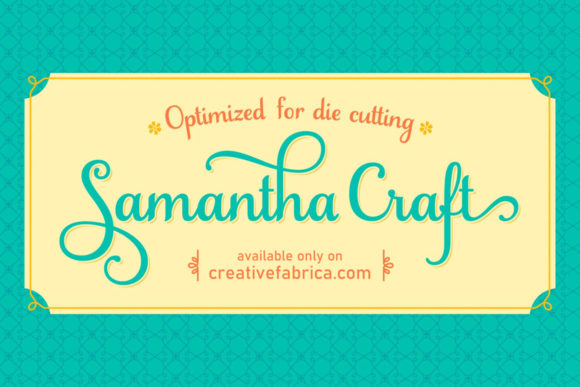
Introducing Samantha Craft Font - the perfect choice for all your crafting needs! Whether you're a professional crafter, a tattoo artist, or simply a lover of beautiful script fonts, Samantha Craft is the ideal choice for you.
Created by the talented Laura Worthington, Samantha Craft is the latest addition to the popular Samantha font family. This stunning script font is ideal for those looking for a Font for Tattoo Script, offering a beautiful, flowing design that is sure to impress.
Samantha Craft is a versatile font that is suitable for a wide range of applications, including screen or print. The thin strokes are much thicker, making it easier for those with a die-cutting machine to cut out and weed as it's not as delicate as the other versions. It's great for screen purposes too, as it's very legible when used small.
Samantha Craft is not just a font, it's a work of art that will add a touch of sophistication and style to any project. With its delicate, yet bold design, Samantha Craft is sure to capture the hearts of all those who love script fonts.